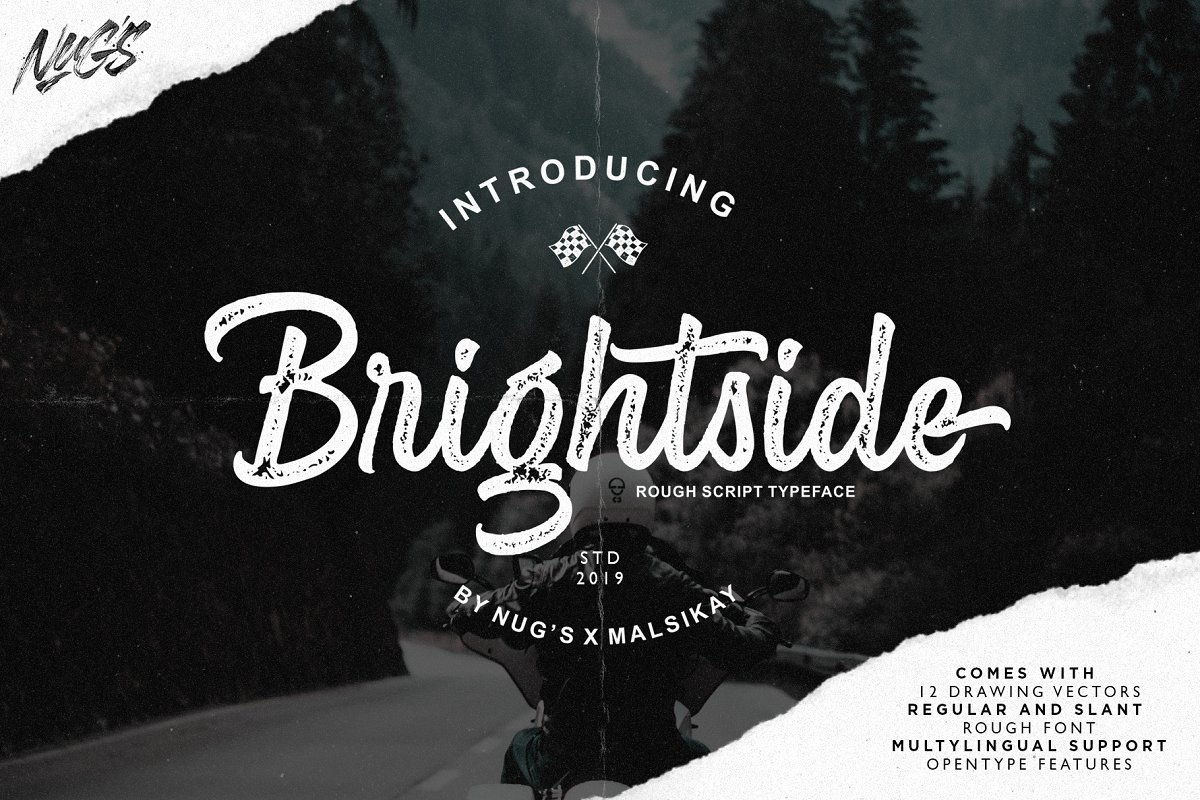
Brightside Font
Brightside Font is perfect for optimistic lifestyle brands, positive psychology practices, inspirational wellness centers, uplifting social campaigns, cheerful children's programs, motivational coaching materials, sunny vacation destinations, joyful community organizations, encouraging educational platforms, and hopeful nonprofit initiatives.
Brightside Font creates excitement because it embodies the radiant energy and optimistic spirit of positive living with its uplifting letterforms and sunshine-inspired character design. The font's warm curves and bright aesthetic instantly convey hope and genuine positivity, making any brand appear encouraging and authentically uplifting. Its carefully crafted sunshine details and optimistic character create an immediate sense of hope that captivates audiences seeking positive experiences, encouraging messages, and products that celebrate the transformative power of optimism and the beautiful possibilities of looking on the bright side of life.
The Brightside Font family includes multiple weights and styles: Regular, Bold, Light, Medium, Italic, Condensed, Extended, Sunny, Optimistic, and Cheerful versions. Each variant maintains the font's signature positive character while offering different levels of brightness and uplifting styling suitable for various wellness and motivational applications.
This uplifting typeface brings the authentic spirit of positive living into contemporary design with remarkable optimism and encouraging appeal. Brightside Font Free Download provides wellness brands and motivational organizations with access to premium sunshine-inspired typography that embodies the essence of hope and positive transformation. The font's bright design and optimistic authenticity make it ideal for businesses seeking to establish meaningful connections with audiences who value positive thinking, mental wellness, and the transformative power of maintaining an optimistic outlook. Whether you're creating branding for wellness centers, designing materials for motivational programs, developing communications for positive psychology practices, or producing content for encouraging community initiatives, this font delivers the bright atmosphere that resonates with audiences seeking genuine hope, positive change, and the uplifting energy that comes from embracing life's bright possibilities. Its versatile design ensures excellent performance across both inspiring printed materials and encouraging digital platforms while maintaining the character of authentic positive typography. The font excels in applications requiring motivational credibility and uplifting appeal. Wellness professionals appreciate its ability to convey genuine optimism while remaining highly functional for various encouraging communications and positive promotional materials. The comprehensive character set includes sunshine symbols and extensive international language support, making it perfect for global wellness brands and international motivational organizations seeking to communicate authentic positivity, hopeful messages, and encouraging optimism to diverse worldwide audiences who embrace positive living, seek mental wellness, and value the transformative power of genuine optimism that brightens every day and creates beautiful possibilities through the simple choice to always look on the bright side of life.